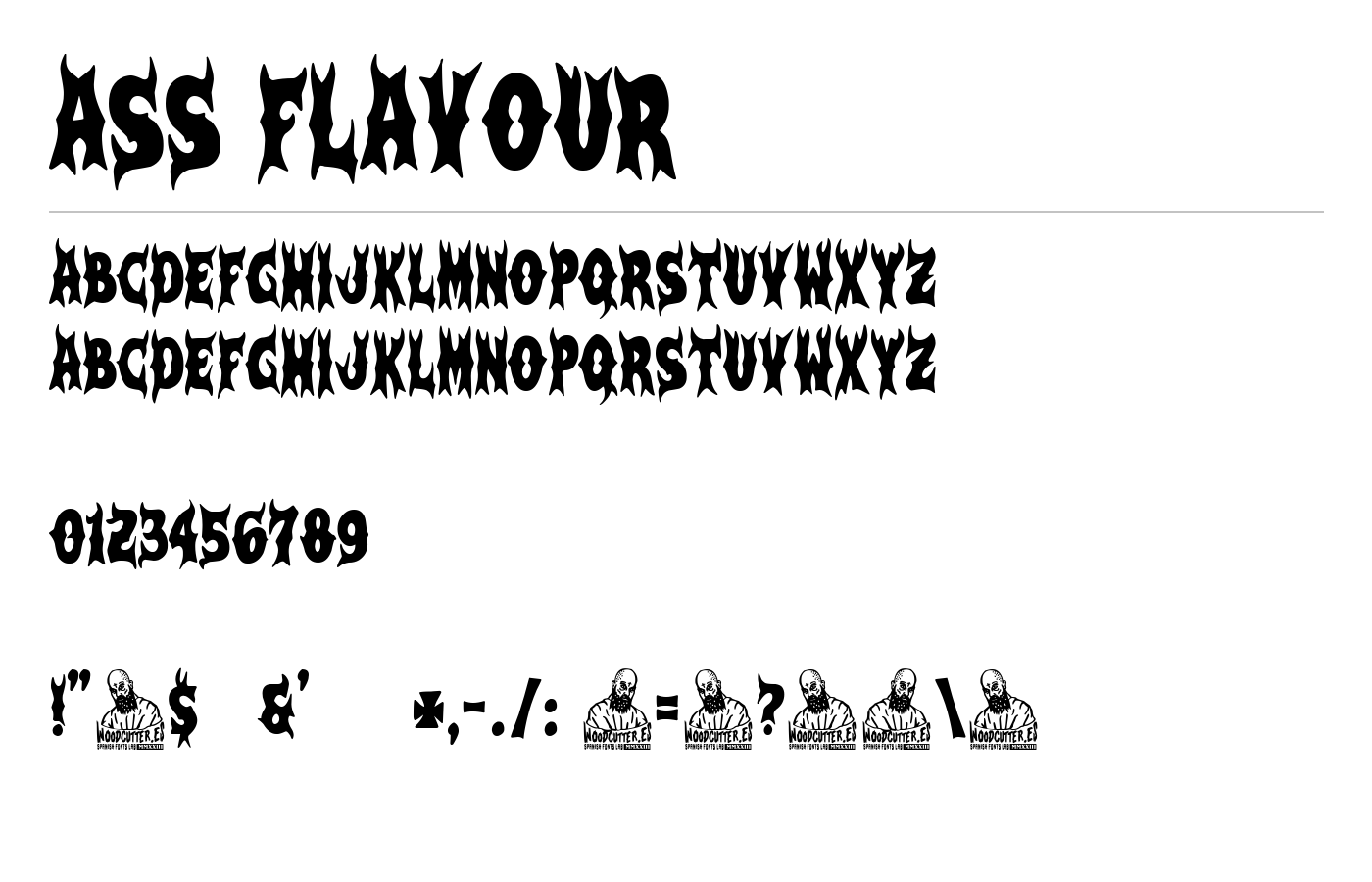
Ass Flavour is a bold, decorative display font with a heavy, provocative style reminiscent of dripping or melting shapes. Its uppercase letterforms have a wild, jagged appearance with thick strokes and dramatic flair, making it ideal for eye-catching headlines or themed designs that want to convey an edgy, rebellious, or horror-inspired mood. This font works best for posters, album covers, or branding where a strong, unconventional personality is desired.
Ass Flavour Font
About Ass Flavour Font